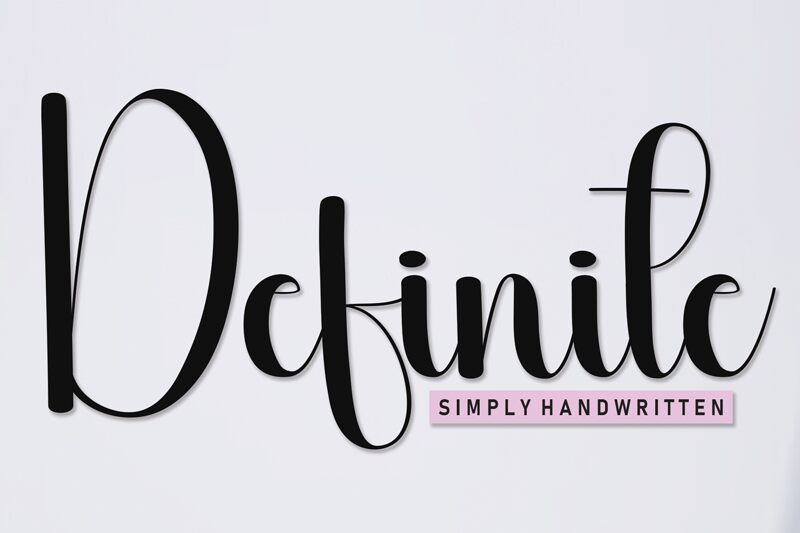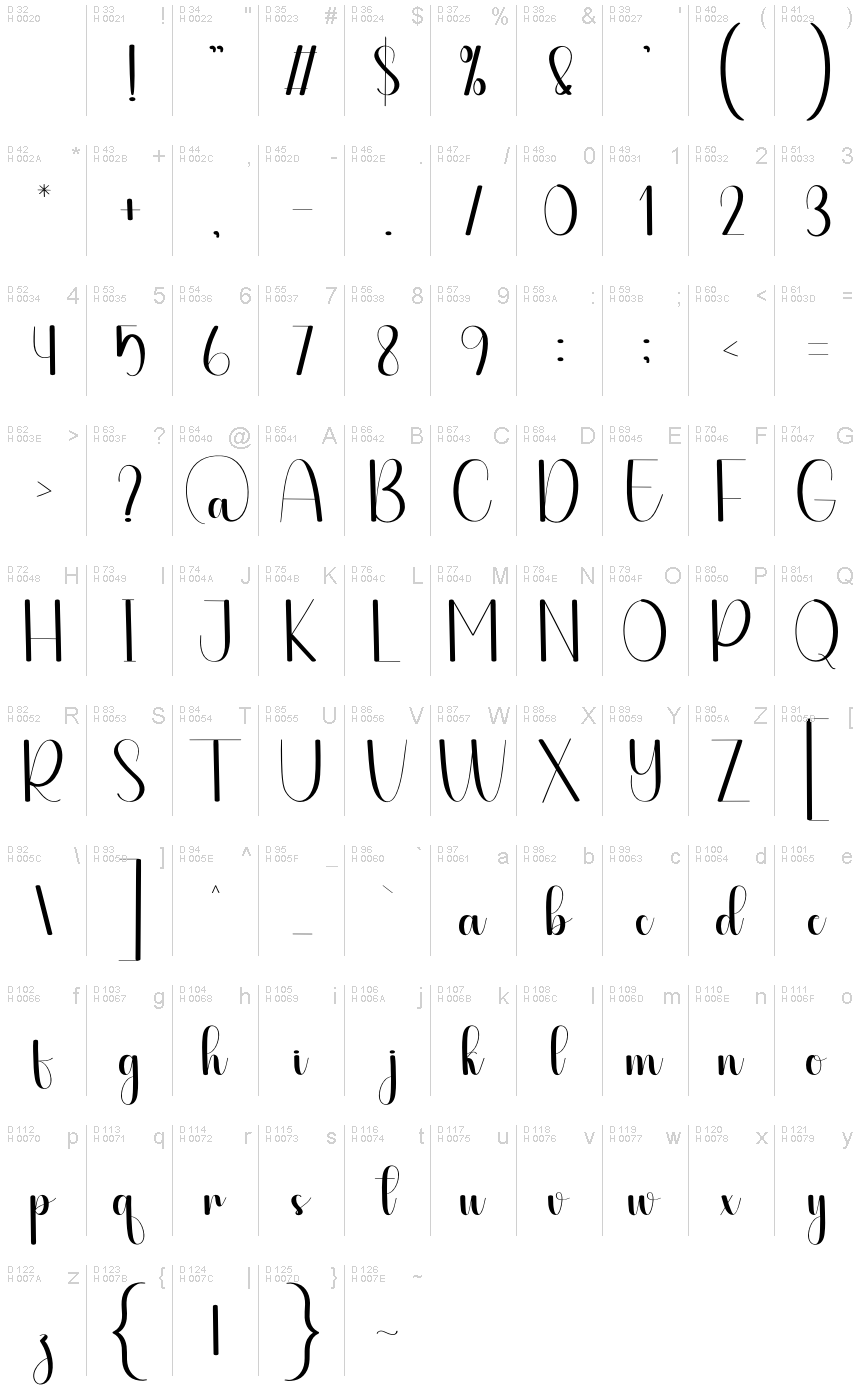
Definite
Definite font, crafted by Scratchones, embodies the elegance of calligraphy with a contemporary twist. Its flowing strokes exude a sense of sophistication, while the charmingly exaggerated curves invite attention. This font's graceful yet bold character makes it ideal for creating striking headlines that demand visibility.
Visually, Definite balances refinement with a playful flair, ensuring it stands out in both print and digital mediums. The interplay of solid forms and airy spaces introduces an inviting harmony that enhances readability without sacrificing style.
Perfect for wedding invitations, branding projects, or any creative endeavor seeking to capture a refined aesthetic, Definite effortlessly combines artistry with functionality. Embrace its unique charm to elevate your designs and leave a lasting impression.